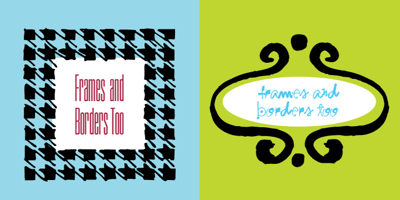
Frames and Borders Too
Frames and Borders Too Font Family was designed by Rae Kaiser and published by Outside the Line. Frames and Borders Too contains 1 styles and family package options. Frames and Borders Too is the follow-up font to Outside the Line’s top selling font Frames and Borders. These borders are a more playful take on borders that are packaged with layout and drawing programs. All hand-drawn for that touch of whimsy. And check out Rae’s newest frame font Frames & Banners and the ever favorite Frames and Borders.